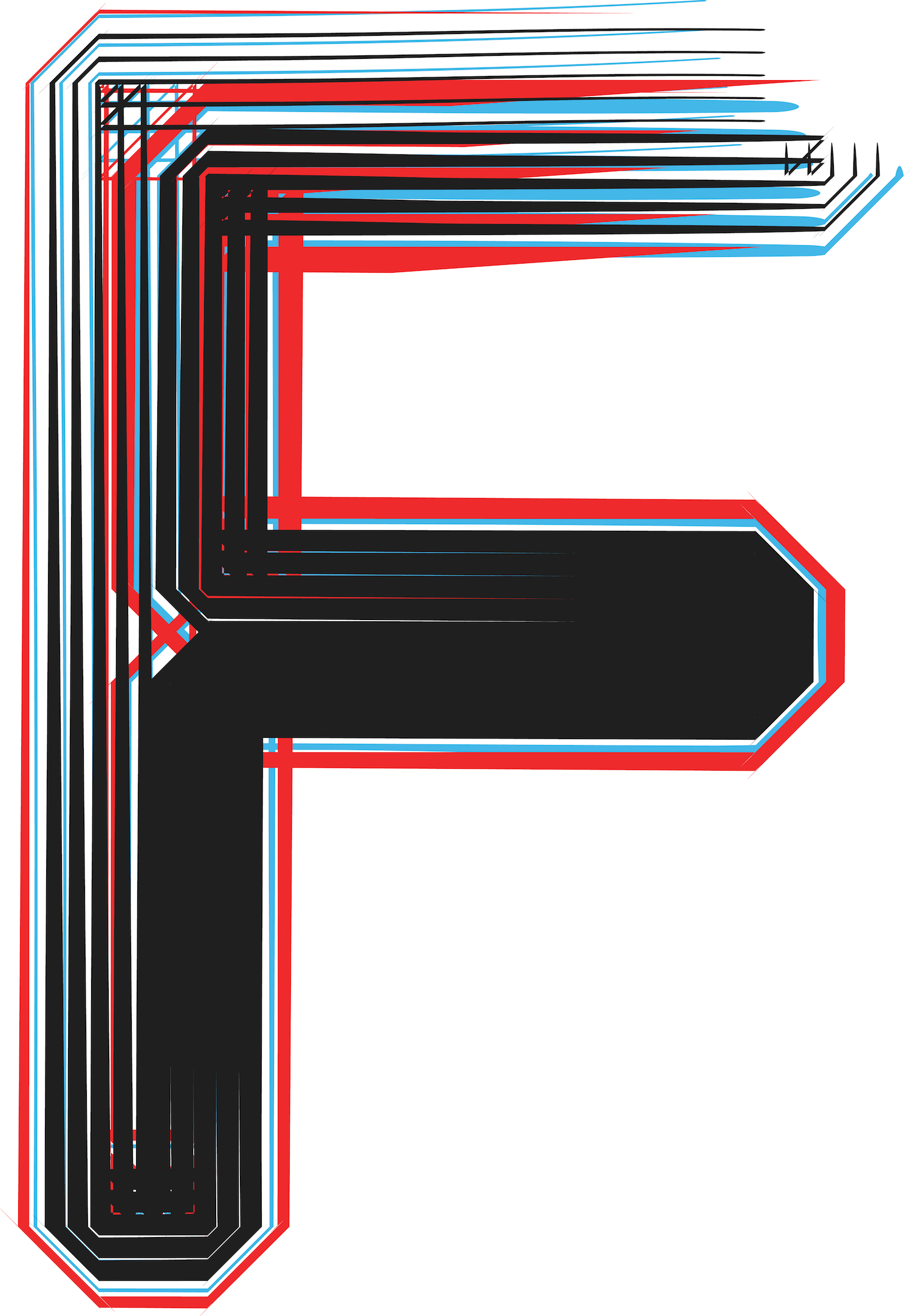
The Best Fonts For The Letter "F" In 2023
What Makes a Font Great for F?
Fonts are often an important part of communication, whether it’s in a business document, a logo, an advertisement or a website. Many people don't realize that the font choice can have a big impact on how their message is received. When it comes to choosing a font for the letter “F”, there are a few key features that can help you make the right decision.
One of the most important things to consider is the weight of the font. For the letter “F”, you want to avoid fonts that are too thin or too heavy. A font that is too thin will be difficult to read, while a font that is too heavy may look too bold and can be overwhelming. It’s best to find a font with a medium weight that looks good without being too overpowering.
Another important factor to consider is the shape of the letter. Some fonts have a curvy shape, while others are more angular. It’s important to choose a font that fits the style of your project. For example, if you are creating a logo for a business, you may want to choose a more modern font with an angular shape.
Finally, you should also think about the spacing of the font. If the font has too much space between each letter, it can make the text difficult to read. On the other hand, if the font is too close together, it can look cluttered and make it harder to read. It’s best to find a font with just enough space between each letter to make it easy to read.
Popular Fonts for the Letter "F"
There are many great fonts to choose from when it comes to the letter “F”. Some of the most popular fonts for this letter include Helvetica, Futura, Arial, Calibri and Open Sans. Each of these fonts has its own unique style and can work well for different projects.
Helvetica is one of the most popular fonts and is often used for business documents, logos and websites. It has a modern, clean look that many people find appealing. Additionally, it has a medium weight and a slightly angular shape, making it easy to read.
Futura is another popular font for the letter “F”. It has a more classic look and is often used for logos and advertisements. It has a medium weight and a slightly curved shape, making it a good choice for projects that need a classic look.
Arial is another popular choice for the letter “F”. It has a clean, modern look that many people find appealing. It has a medium weight and a slightly angular shape, making it easy to read. Additionally, it has a good amount of space between each letter, making it easier to read.
Calibri is another popular font for the letter “F”. It has a modern, clean look that many people find appealing. Additionally, it has a medium weight and a slightly curved shape, making it easy to read.
Finally, Open Sans is a popular font for the letter “F”. It has a modern, clean look that many people find appealing. Additionally, it has a medium weight and a slightly angular shape, making it easy to read. It also has a good amount of space between each letter, making it easier to read.
Choosing the right font for the letter “F” can be a challenge, but with a bit of research and consideration, you can find the perfect font for your project. Consider the weight, shape, and spacing of the font to ensure that it is easy to read and looks good. Additionally, there are many popular fonts to choose from, including Helvetica, Futura, Arial, Calibri, and Open Sans. With a bit of research, you can find the perfect font for your project.